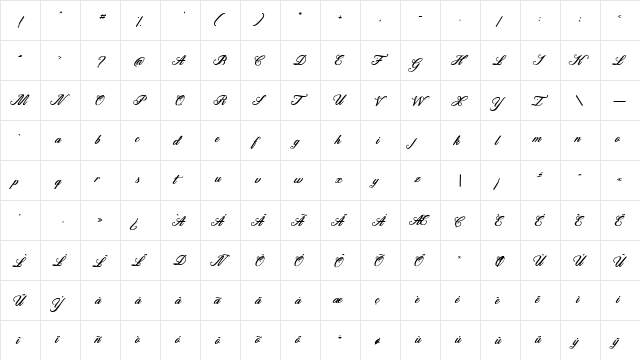
Motherland Regular
| Foundry | Maelle.K |
| Designer | C.T.B |
Design Context for Motherland Typeface
Motherland is a composed and adaptable typeface that performs quietly and consistently across a wide range of design contexts.